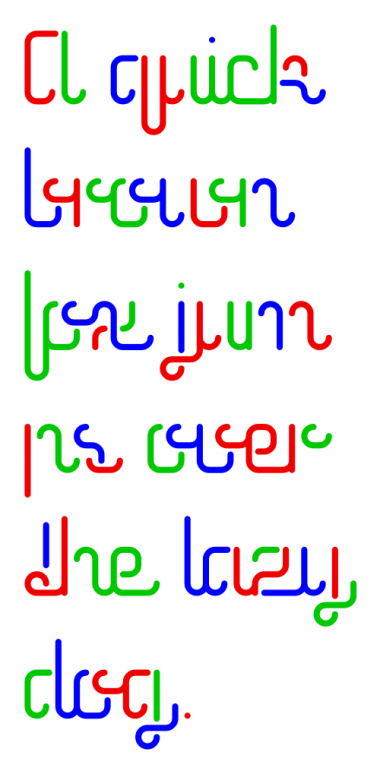
A little experiment I have long wanted to do: The letters connect to eachother, eventhough they are unconnected to themselves. This makes some quite interesting shapes, but it also makes it harder to read.
Great! f/t just aren't very recognizable, I would add a small cross stroke.
Yeap, not easy to read, but shapes are beautiful.